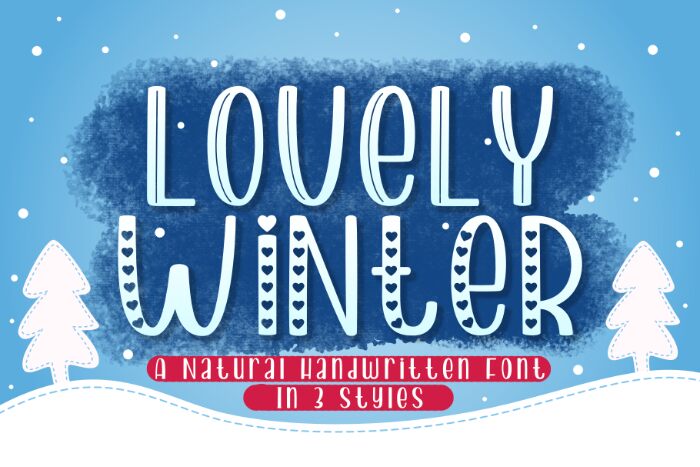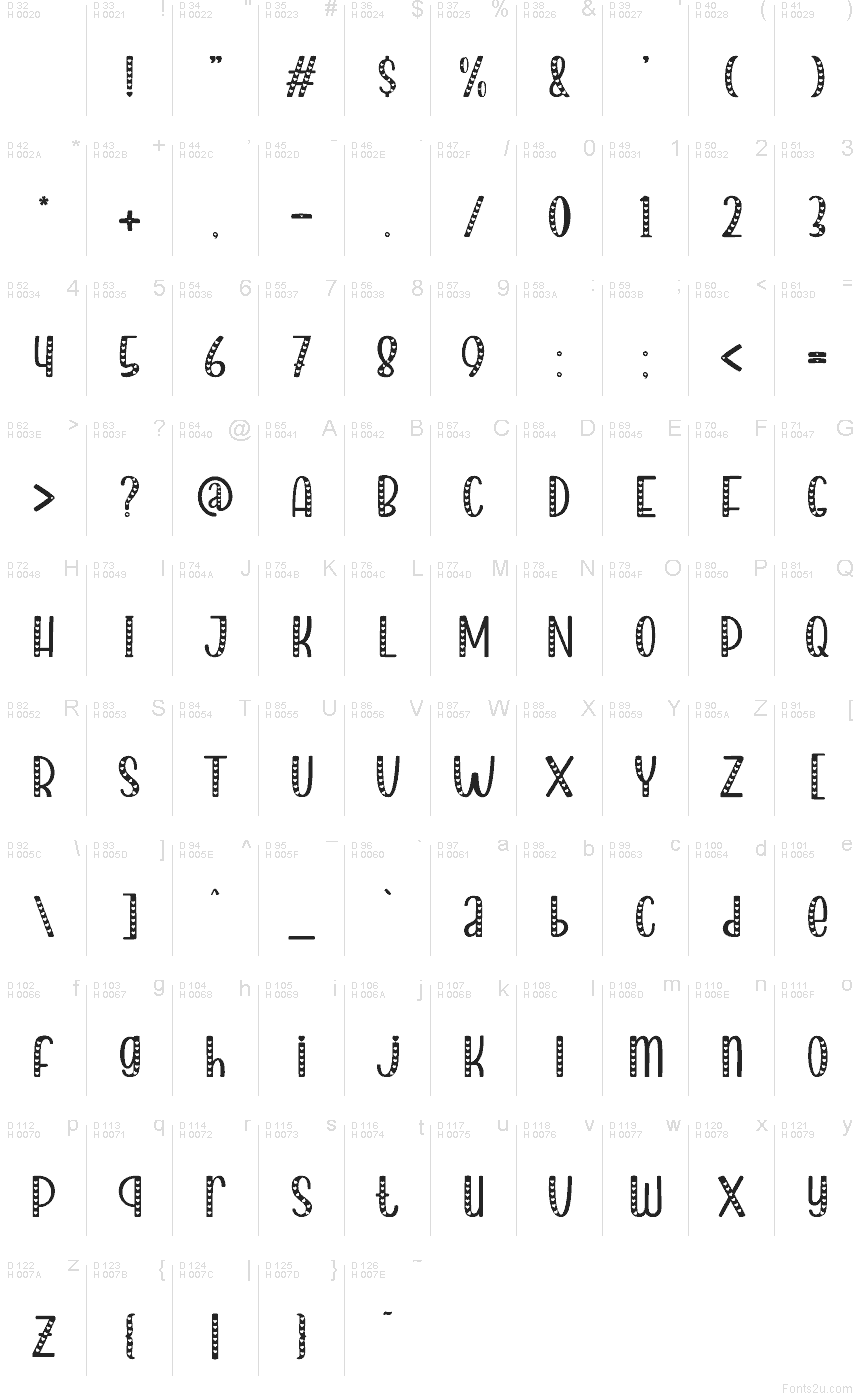
Lovely Winter font by Madatype Studio is a free holiday valentine decorative font. Its tall, rounded letters are filled with a trail of tiny heart cutouts, giving every word a dotted, candy-box texture that feels cozy and playful. The strokes are smooth and friendly, so even with all the detailing, it stays legible and fun rather than fussy.
Using Lovely Winter, your text instantly feels like a handwritten love note on a snowy day, making this free font a natural fit for Valentine cards, party invitations, classroom crafts, social media graphics, stickers, and gift packaging. It shines when used big, so let it lead your titles and pair it with a simple sans serif for any small supporting text.